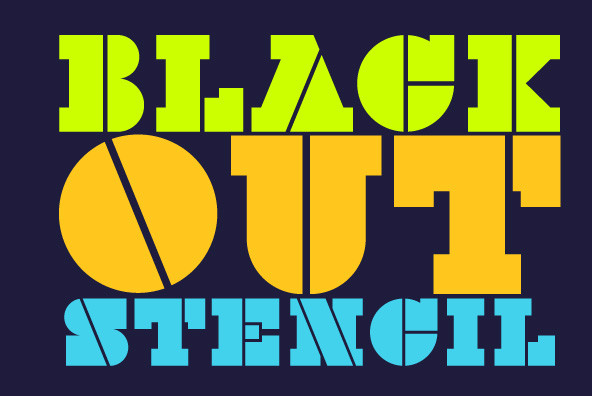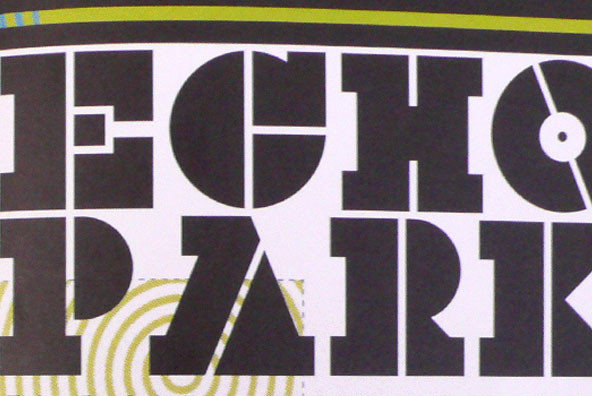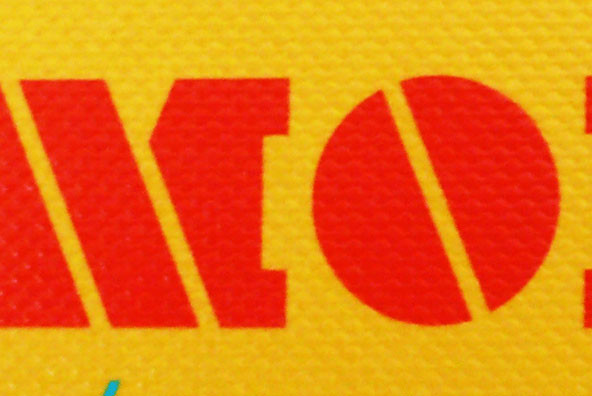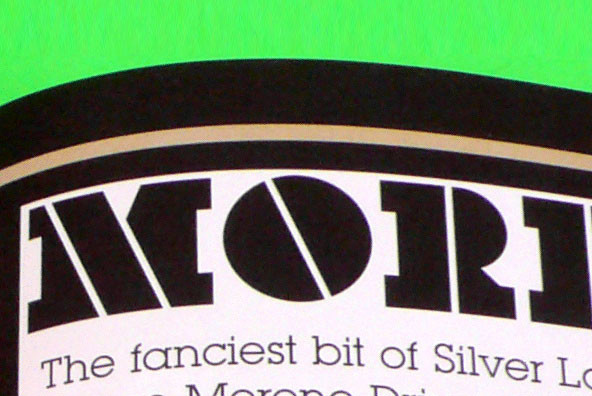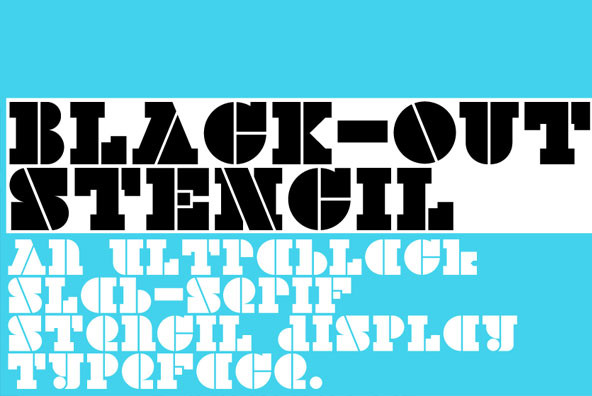
Black–Out is a result of three things: the need for a distinctive ultra-black display typeface, an admiration for slab-serifs and Clarendons, and the love of systematic stencil type. Fusing all the desires together resulted in Black–Out.